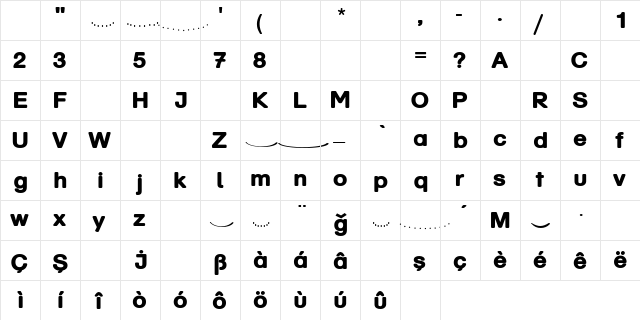
Stt Regular
Design Context for S�tt Typeface
S�tt offers clean, dependable letterforms without strong stylistic allegiance, making it a practical choice for designers who need flexibility.
Pro Tip: Pair S�tt with a font of contrasting weight or personality to build a more expressive typographic hierarchy.